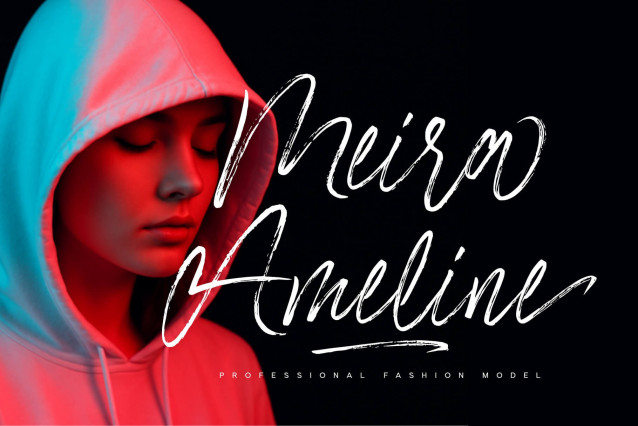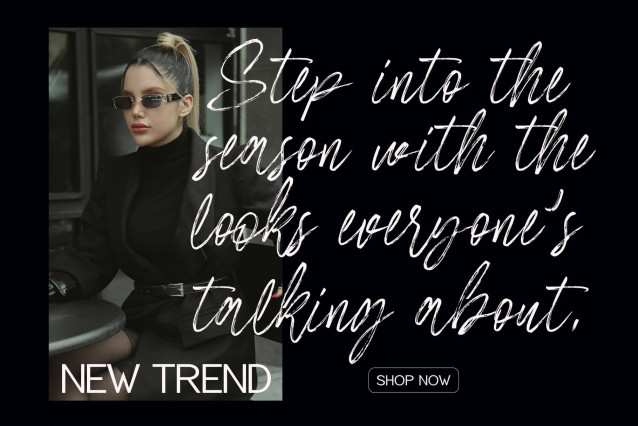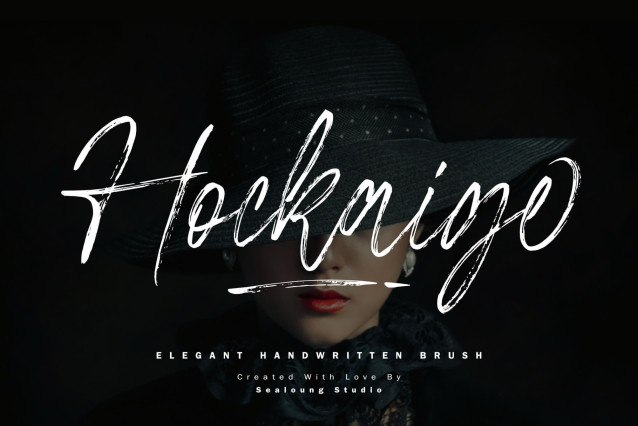
Hockaige Brush Font
Hockaige Brush Font is a handwritten font crafted with natural ink and a perfect brush touch. It’s a professional choice for a wide range of creative projects, including logos, titles, covers, branding, invitations, wedding designs, magazine layouts, social media posts, advertisements, product packaging, corporate identities, product designs, labels, photography, watermarks, special events, and any project that needs an authentic handwritten feel.